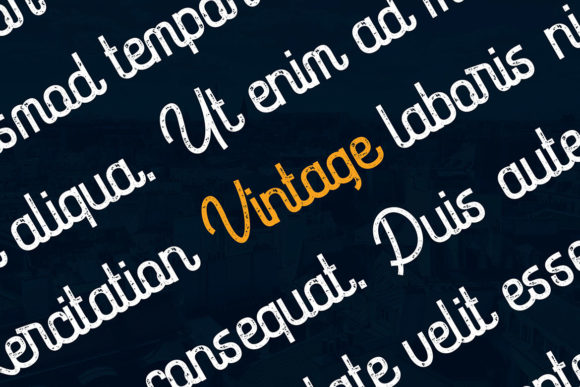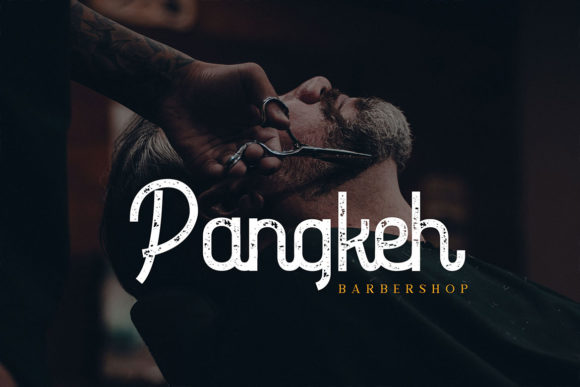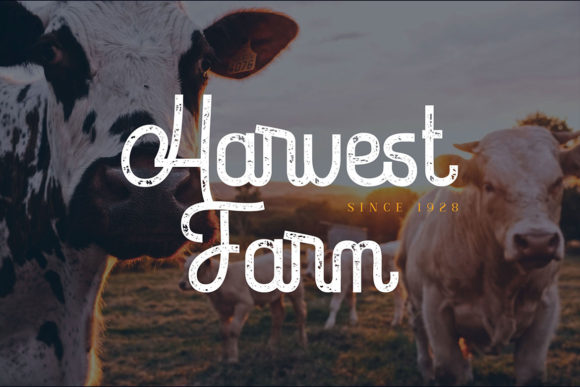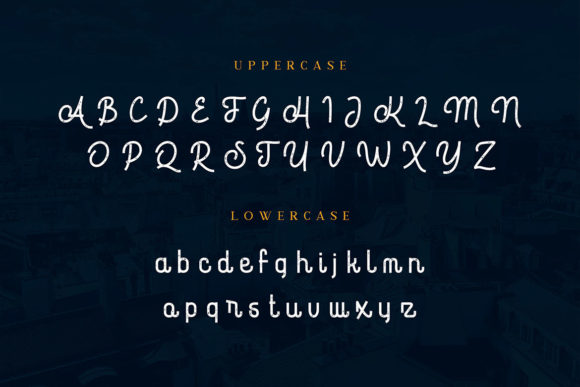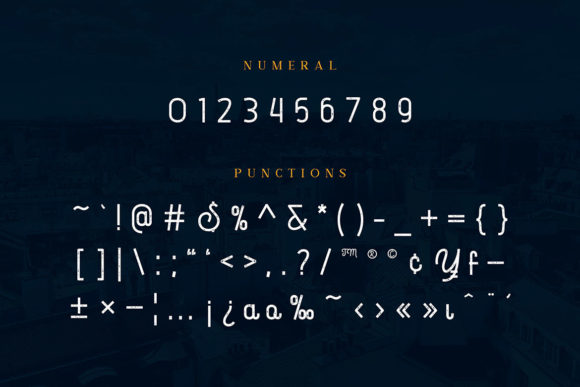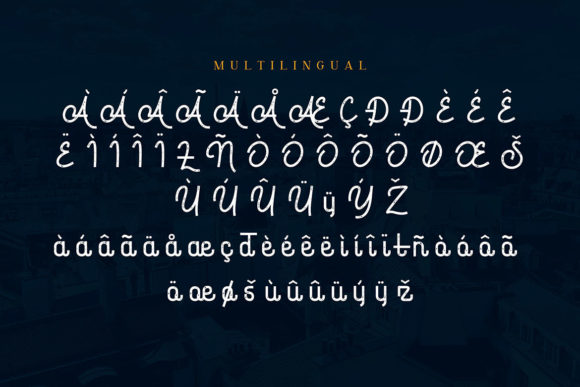
Dungeons Font: Elevate Your Designs with a Touch of Vintage Elegance
In the realm of typography, few fonts manage to capture the essence of nostalgia and elegance as effortlessly as Dungeons. This handwritten font is a masterclass in simplicity and sophistication, offering a unique blend of playfulness and vintage charm that can instantly elevate any design project. Whether you’re a seasoned designer or a crafty DIY enthusiast, Dungeons is a versatile and captivating choice that can add a special retro touch to your creations.
The Allure of Dungeons Font
At its core, Dungeons font is a beautifully crafted handwritten typeface that exudes a sense of warmth and character. Its elegant lines and fluid curves evoke a feeling of nostalgia, reminiscent of classic handwritten scripts from a bygone era. Yet, despite its vintage aesthetic, Dungeons feels surprisingly modern and adaptable, making it suitable for a wide range of design applications.
Key Features of Dungeons Font
- Playfully Nostalgic: Dungeons font strikes the perfect balance between playfulness and sophistication, making it ideal for designs that require a touch of whimsy and charm.
- Vintage Aesthetic: With its classic handwritten feel, Dungeons brings a sense of timelessness and elegance to any design project.
- Versatility: From logos and branding to invitations, packaging, and digital content, Dungeons is a versatile font that can be used across various mediums and design genres.
- Easy to Read: Despite its ornate feel, Dungeons remains highly legible, ensuring that your message is conveyed clearly and effectively.
Design Applications for Dungeons Font
The versatility of Dungeons font makes it an excellent choice for a multitude of design projects. Here are some ideas to get you started:
- Branding and Logos: Use Dungeons to create a memorable brand identity that stands out with its unique and elegant aesthetic.
- Wedding Invitations and Stationery: Add a touch of vintage romance to your wedding invitations, stationery, and other paper goods with Dungeons.
- Packaging Design: Elevate your product packaging with a font that combines elegance and playfulness.
- Digital Content: Incorporate Dungeons into your website, blog, or social media graphics to give them a distinctive and captivating look.
- Crafting and DIY Projects: Whether you’re creating handmade cards, scrapbooking, or working on other crafty projects, Dungeons can add a beautiful, personal touch.
Tips for Using Dungeons Font Effectively
To make the most of Dungeons font, consider the following tips:
- Pair with Complementary Fonts: Combine Dungeons with simpler sans-serif fonts for contrast and visual interest.
- Experiment with Colors: While Dungeons looks great in classic black and white, don’t be afraid to experiment with colors that match your brand or design theme.
- Play with Sizes: Use varying font sizes to create hierarchy and emphasis in your designs.
- Add Texture and Effects: Consider adding subtle textures or effects to give your text a more organic, handmade feel.
Dungeons font is a remarkable addition to any designer’s toolkit, offering a perfect blend of elegance, nostalgia, and playfulness. Its versatility, readability, and vintage charm make it an excellent choice for a wide range of projects, from professional branding and packaging to personal crafting and DIY endeavors. By incorporating Dungeons into your designs, you can add a special retro touch that captivates and delights your audience. So why wait? Explore the creative possibilities with Dungeons font today and discover how this outstanding handwritten typeface can transform your designs.